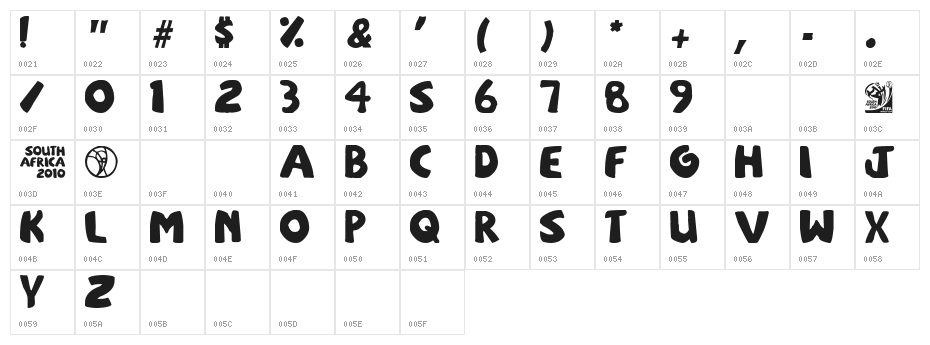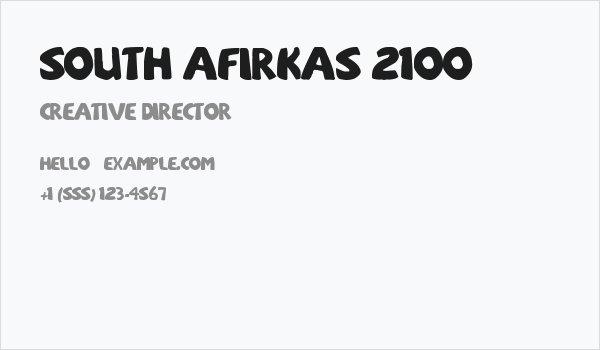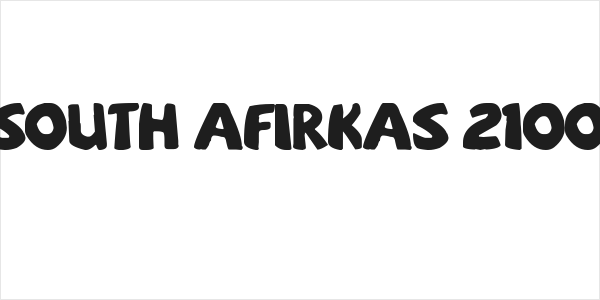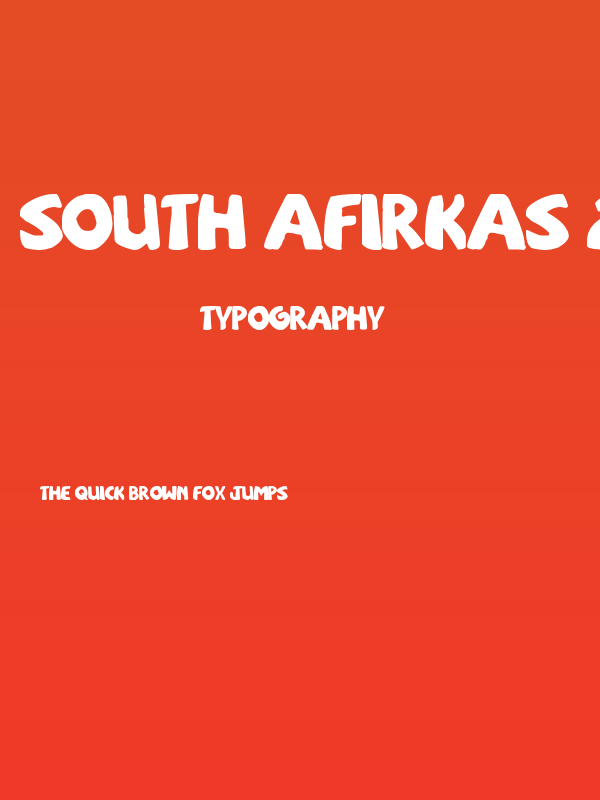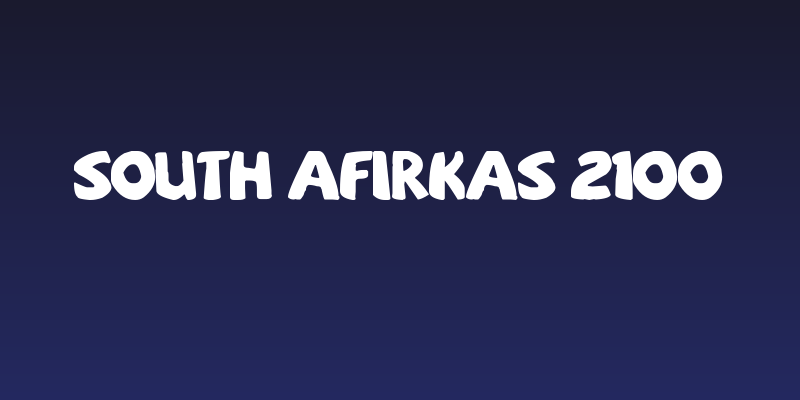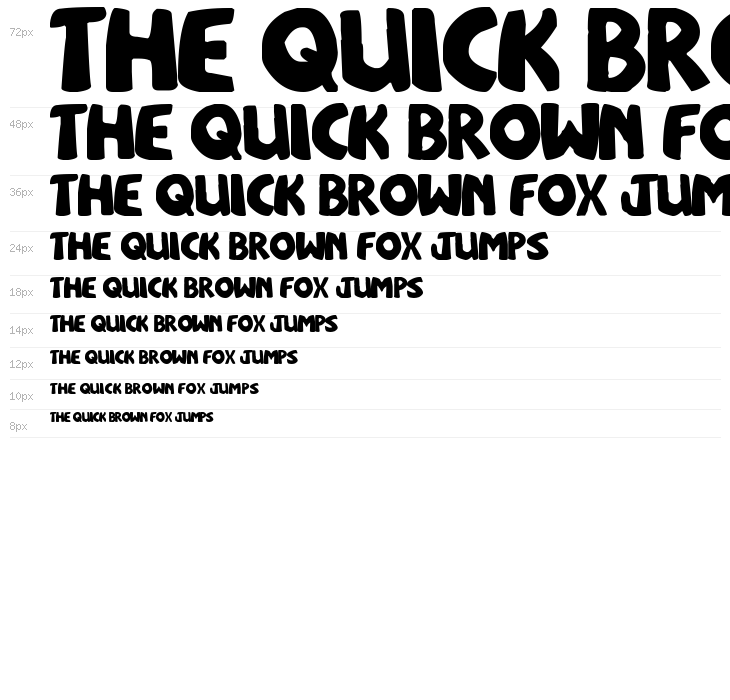
sOuTh Afirkas 2100 Font
sOuTh Afirkas 2100 Description
This font features bold, playful characters with a distinctly rounded and chunky appearance. The letters are designed with a sense of fun and energy, making them stand out with their thick strokes and slightly irregular shapes. The uppercase and lowercase letters maintain a consistent style, contributing to a cohesive look. The numbers and special characters follow the same design principles, ensuring uniformity across all elements. This font is ideal for projects that require a lively and informal touch, such as children's books, posters, and playful branding.
| Proposed Projects | Ideal for children's books, playful branding, and vibrant posters. |